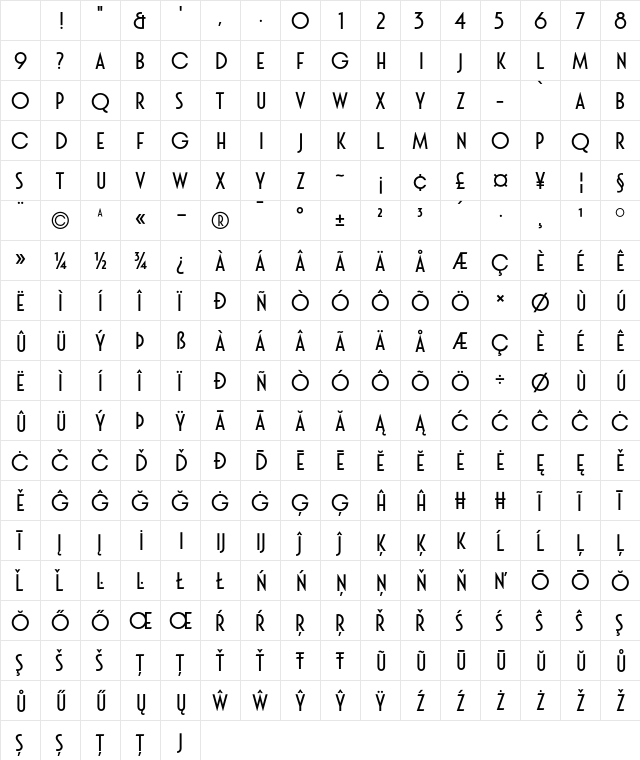
Complete Grand Casino Regular glyph index. Displaying only characters natively supported by Grand Casino Regular font.
Grand Casino is a composed and adaptable typeface that performs quietly and consistently across a wide range of design contexts.